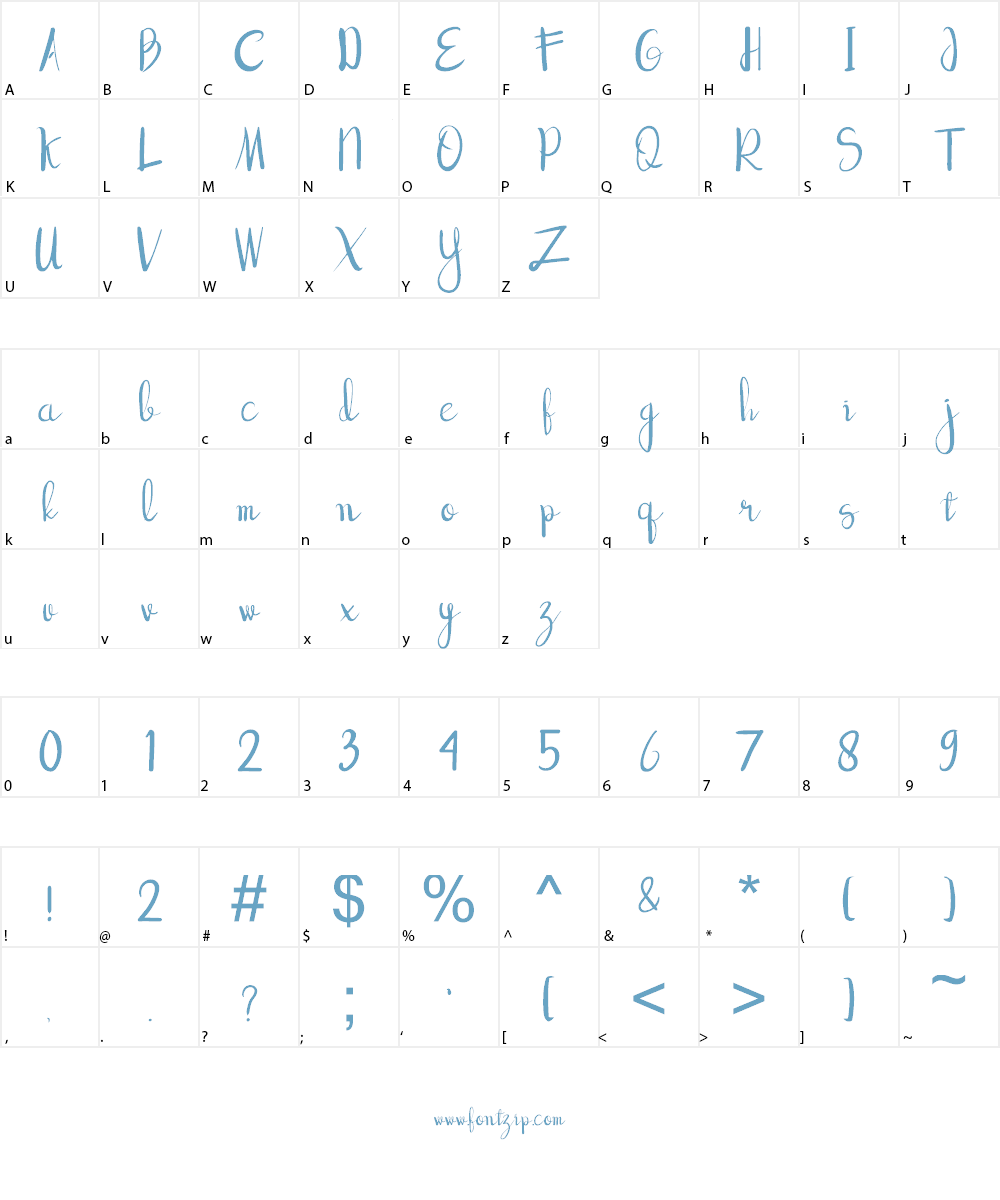
Good Vibe is a new, modern script with a handwritten style. Good Vibe works great for a large range of projects such as wedding invites with floral designs, a banner, personal branding and much more.